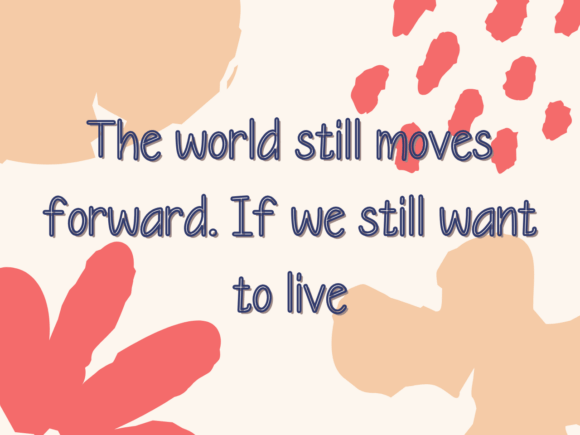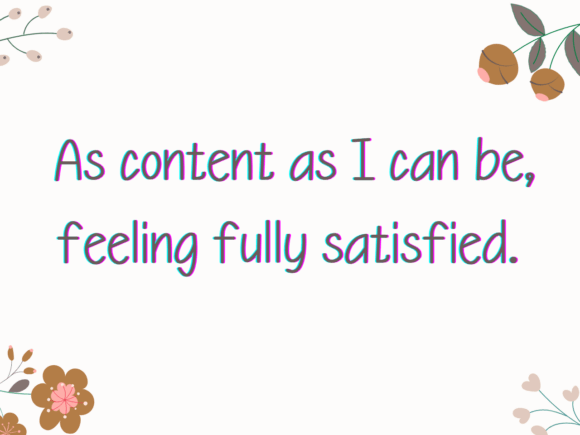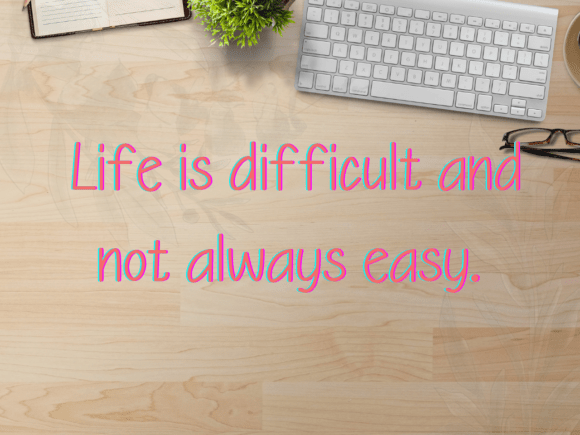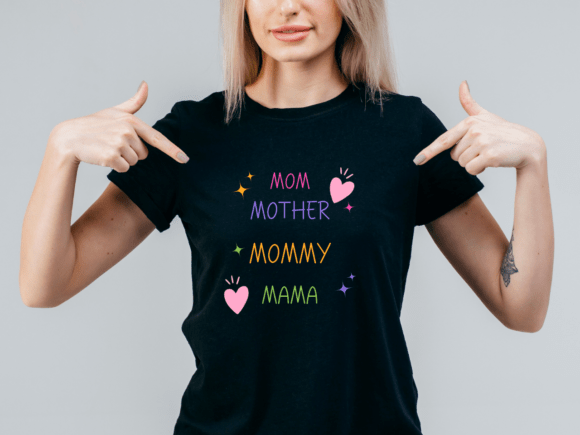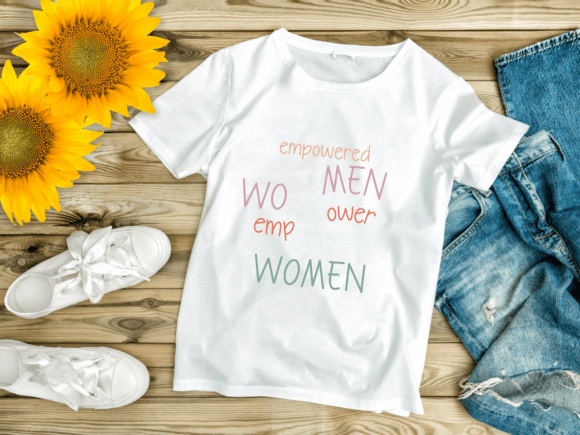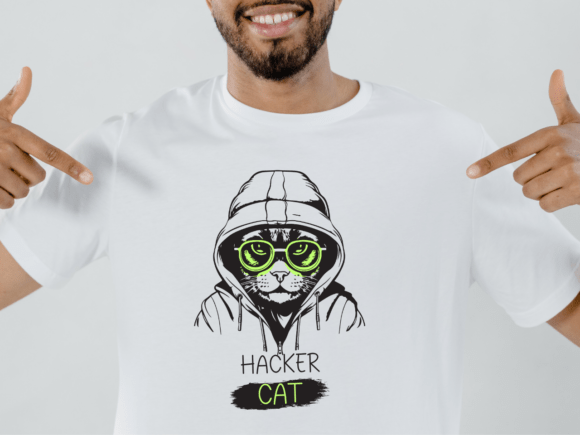
Introduction to Narut Font
Narut Let’s design this font to make the design different.
It has its own identity It can be used to add distinctiveness to your work whether it is used in a letter.
Key Features of Narut Font
Why Choose Narut Font?
Narut Font offers exceptional quality and versatility, making it a valuable addition to your design toolkit. Whether you’re creating for personal projects or commercial use, Narut Font delivers professional results.